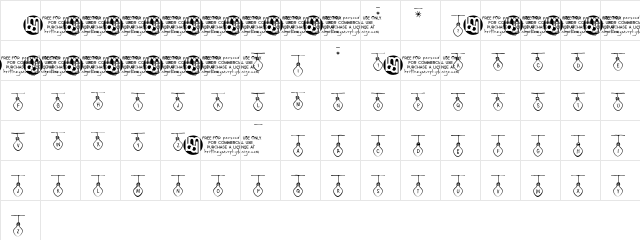
Complete Twinkle Lights Demo glyph index. Displaying only characters natively supported by Twinkle Lights Demo font.
Twinkle Lights is a composed and adaptable typeface that performs quietly and consistently across a wide range of design contexts. Its slender proportions lend an understated elegance to any composition.